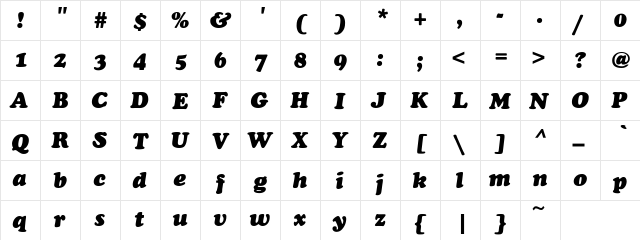
Lynette Bold Italic Regular
Design Context for Lynette Bold Italic Typeface
Lynette Bold Italic offers clean, dependable letterforms without strong stylistic allegiance, making it a practical choice for designers who need flexibility. The slanted form adds forward momentum and visual energy. The heavy weight commands attention and anchors typographic hierarchies.
Pro Tip: Try Lynette Bold Italic for annotation and caption copy alongside an upright companion — the contrast in angle creates a dynamic but ordered typographic system.